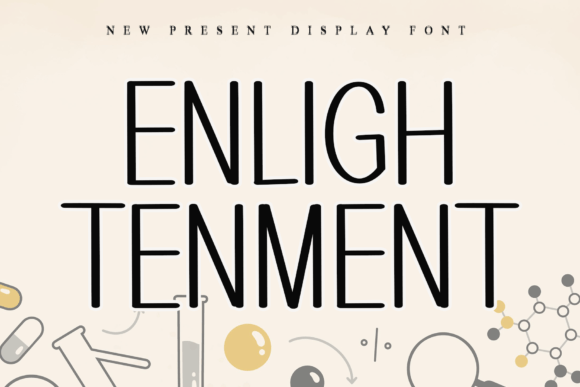
Welcome to the world of ENLIGHTENMENT, a captivating display font that weaves a tapestry of beauty and sophistication. Its elegant strokes dance across your screen, reminiscent of a handwritten masterpiece. ENLIGHTENMENT possesses an allure that is both timeless and captivating, adding a touch of grace to any project.
ENLIGHTENMENT exudes an air of confidence and charm, making it the perfect choice for wedding invitations, thank-you cards, logos, business cards, and any design that calls for a personal touch. Let your words shine with a touch of enchantment, courtesy of ENLIGHTENMENT's irresistible allure.
Transport yourself to a realm of creativity and visual delight with ENLIGHTENMENT. Its versatility extends from eye-catching headlines to delicate notes, effortlessly elevating your designs to new heights. Create masterpieces that resonate with elegance and charm, leaving an indelible mark on your audience's hearts.
Step into the world of ENLIGHTENMENT and be captivated by its exquisite beauty. Discover a font that transforms your words into art, a font that speaks to the soul with its delicate curves and flowing lines. Let ENLIGHTENMENT ignite your imagination and elevate your designs to a realm of timeless elegance.